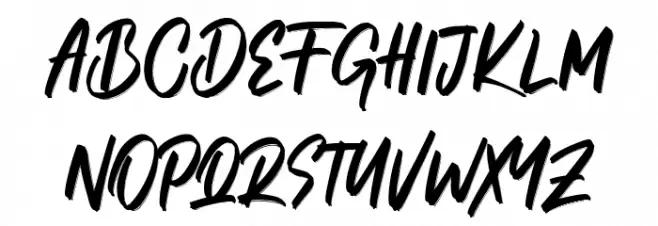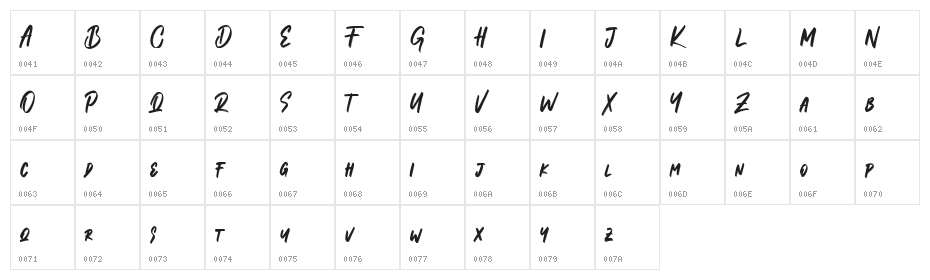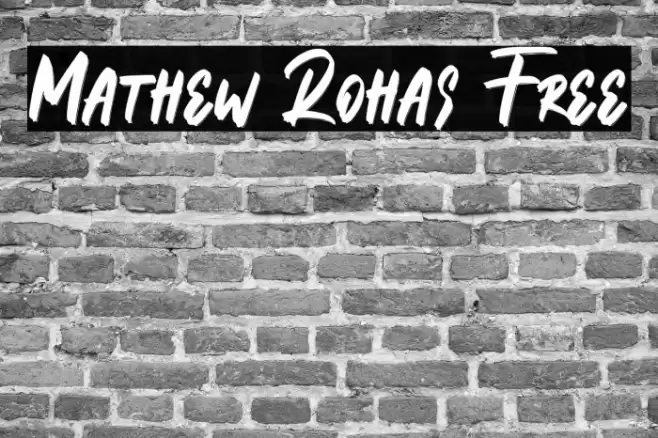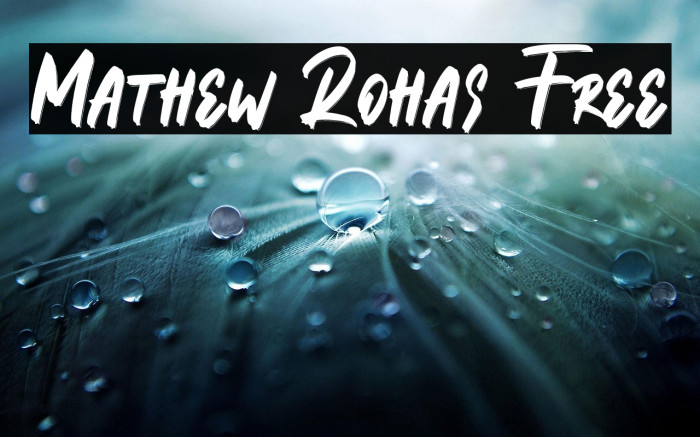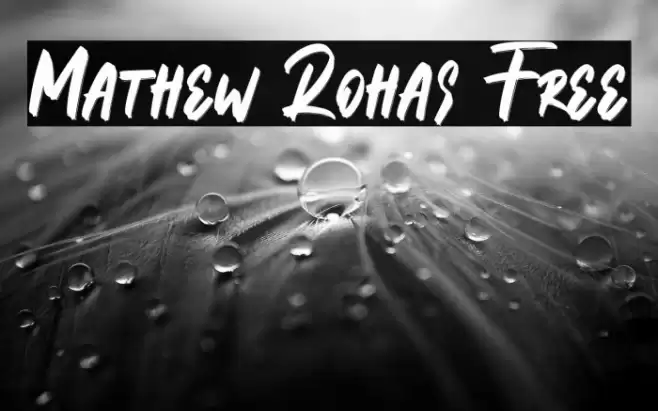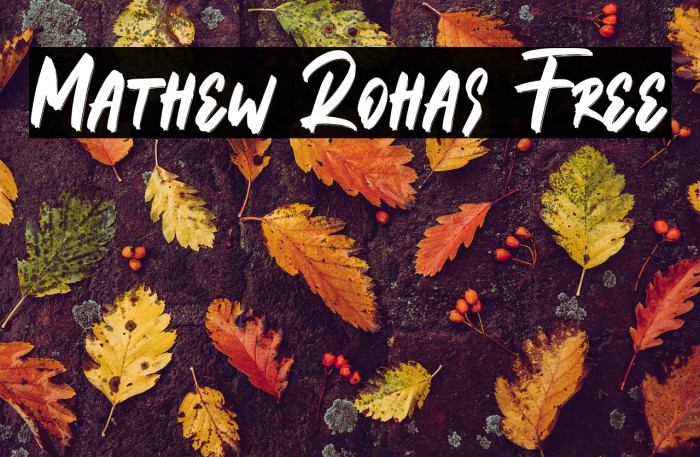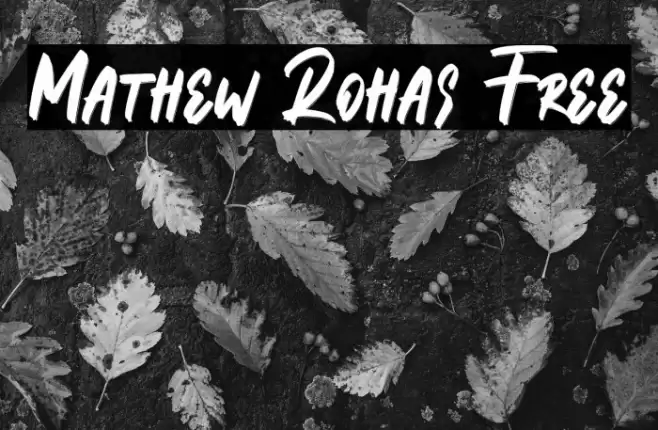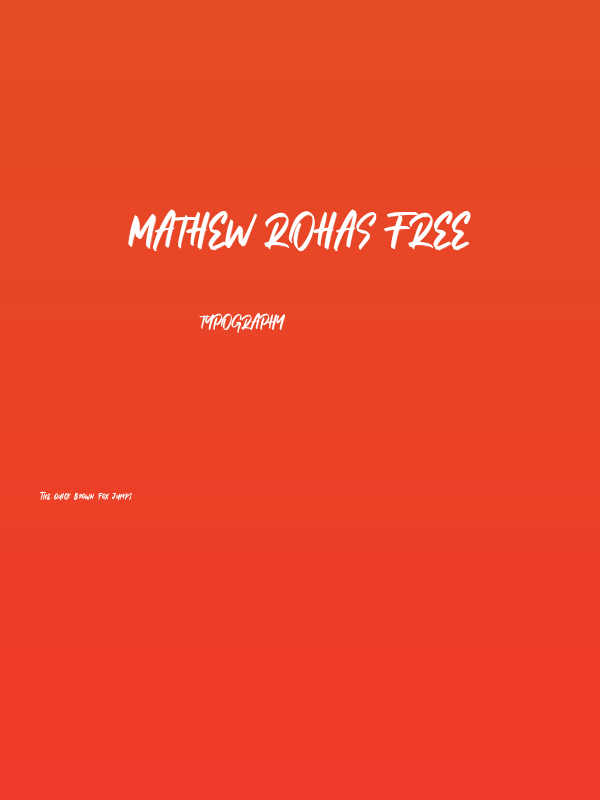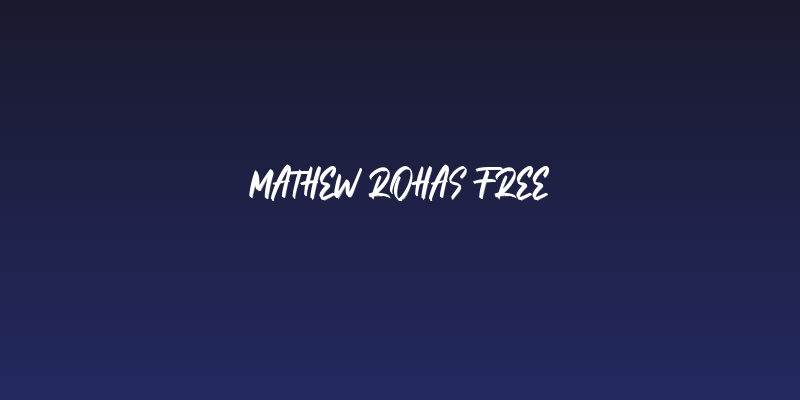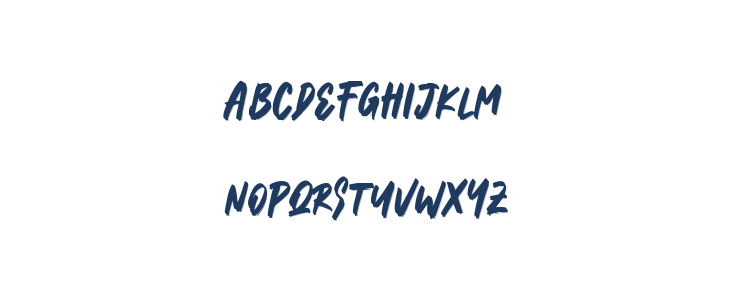
Mathew Rohas Free Font
Mathew Rohas Free Description
This font features a bold, energetic script style with a hand-drawn appearance. The letters are slightly slanted, giving a dynamic and fluid feel. The strokes are thick and consistent, contributing to a strong visual impact. The uppercase and lowercase letters maintain a cohesive look, with some characters featuring unique flourishes that add personality. The font's overall design is modern and expressive, making it suitable for projects that require a lively and informal touch.
| Proposed Projects | Ideal for branding, posters, social media graphics, and any design needing a lively, personal touch. |